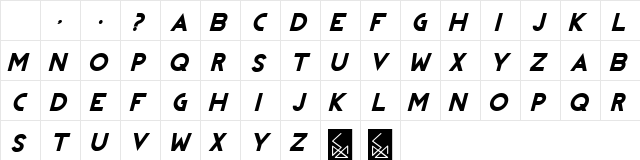
Complete REVOLUTION Italic Italic glyph index. Displaying only characters natively supported by REVOLUTION Italic Italic font.
REVOLUTION Italic is a composed and adaptable typeface that performs quietly and consistently across a wide range of design contexts. The slanted form adds forward momentum and visual energy.
Pro Tip: Use REVOLUTION Italic for emphasis, pull quotes, and subheadings where its slanted energy can add rhythm to the layout.